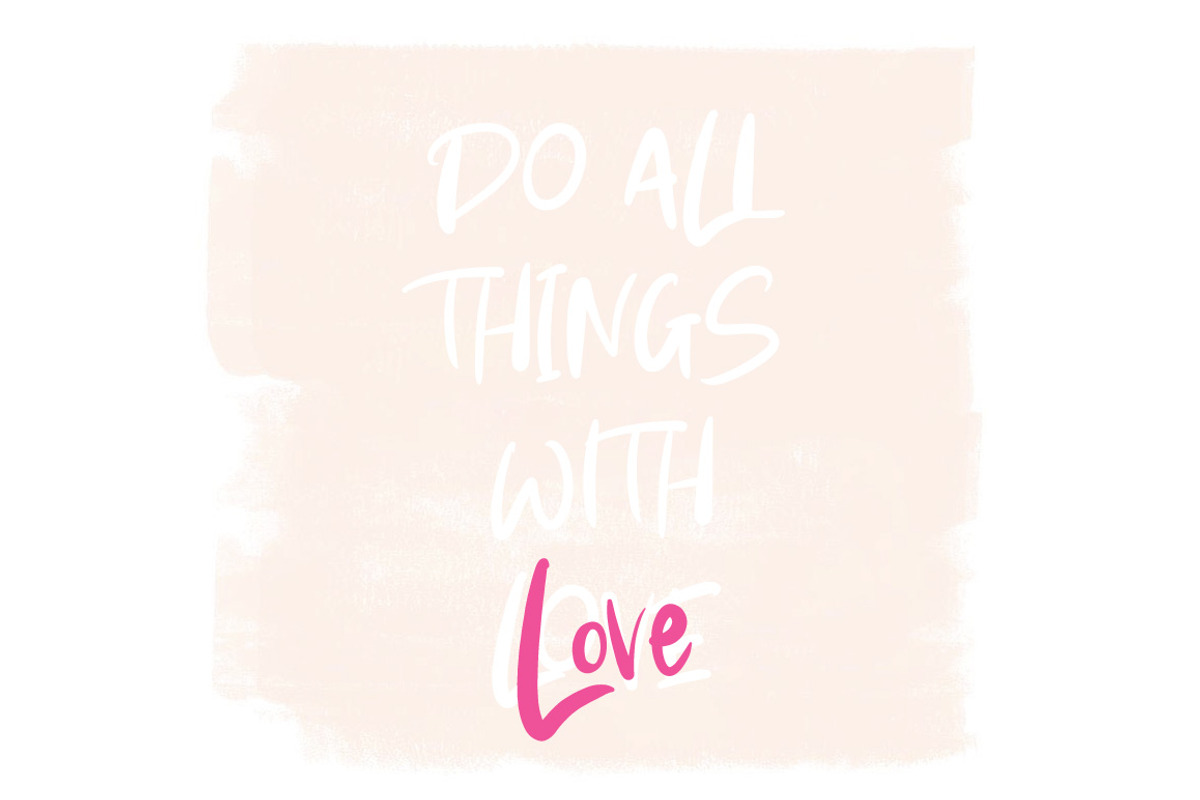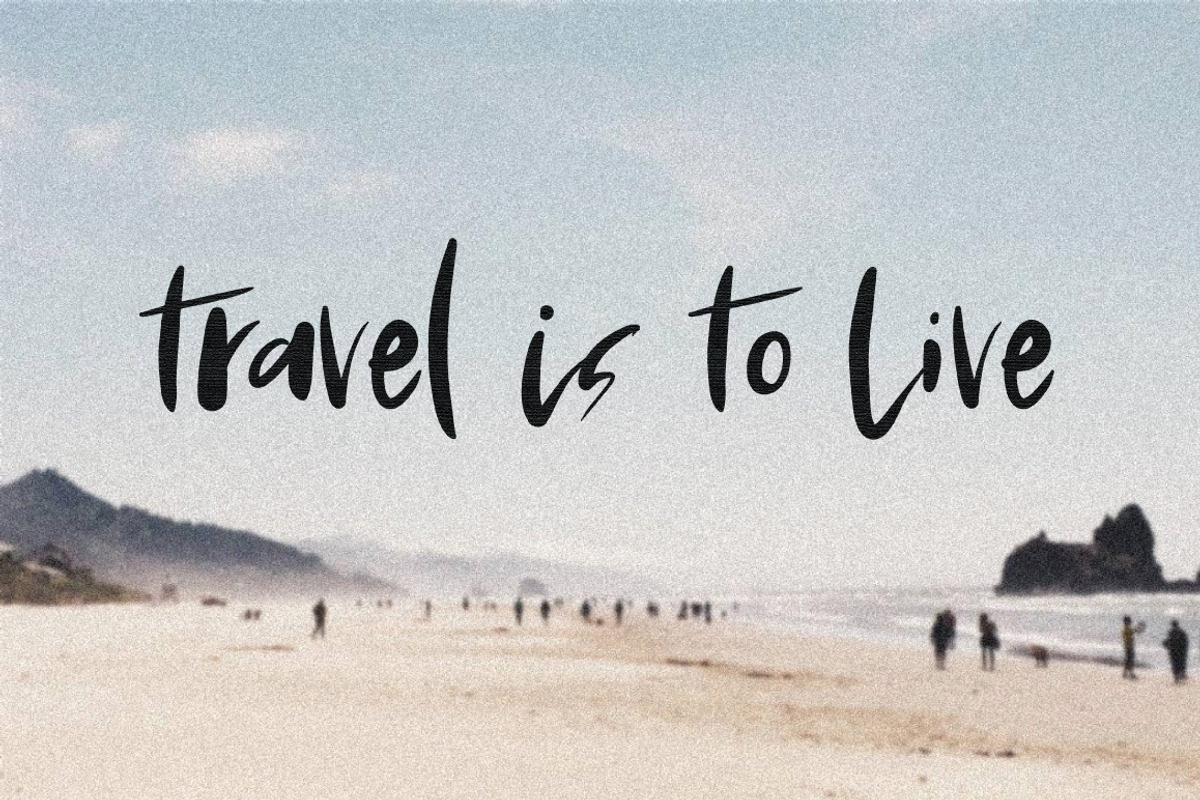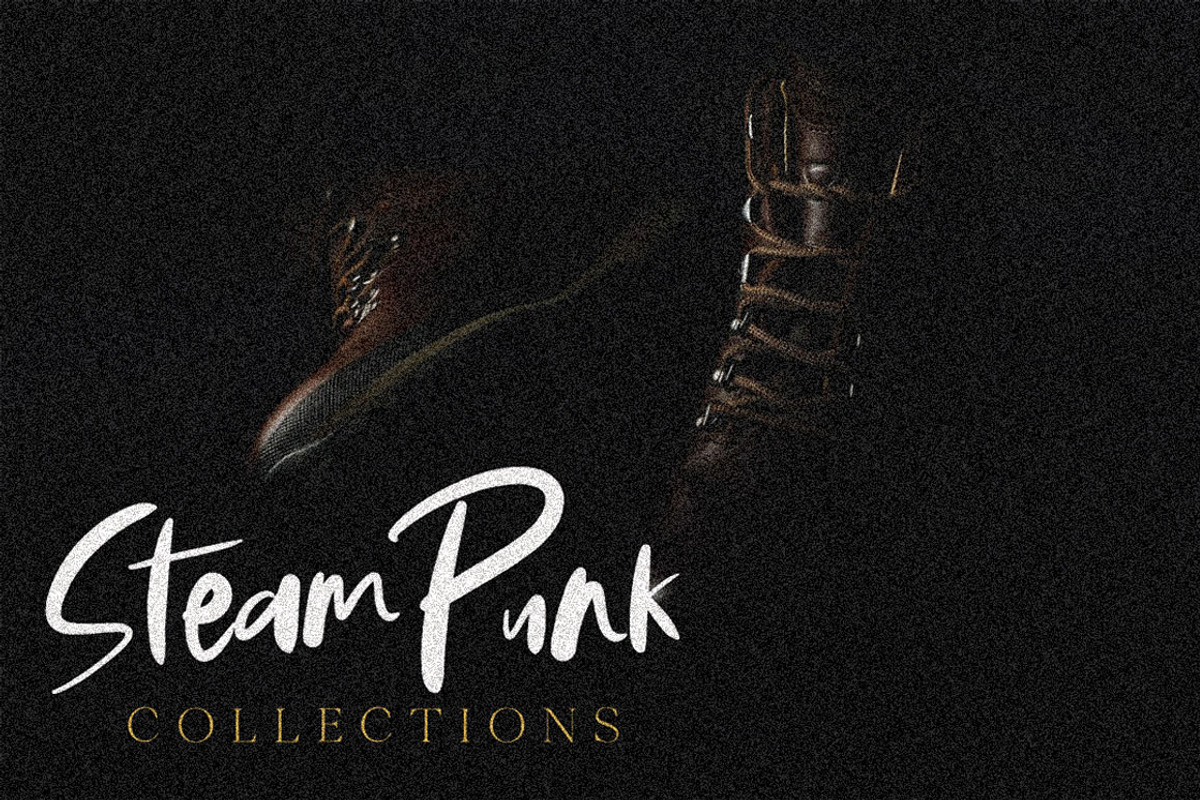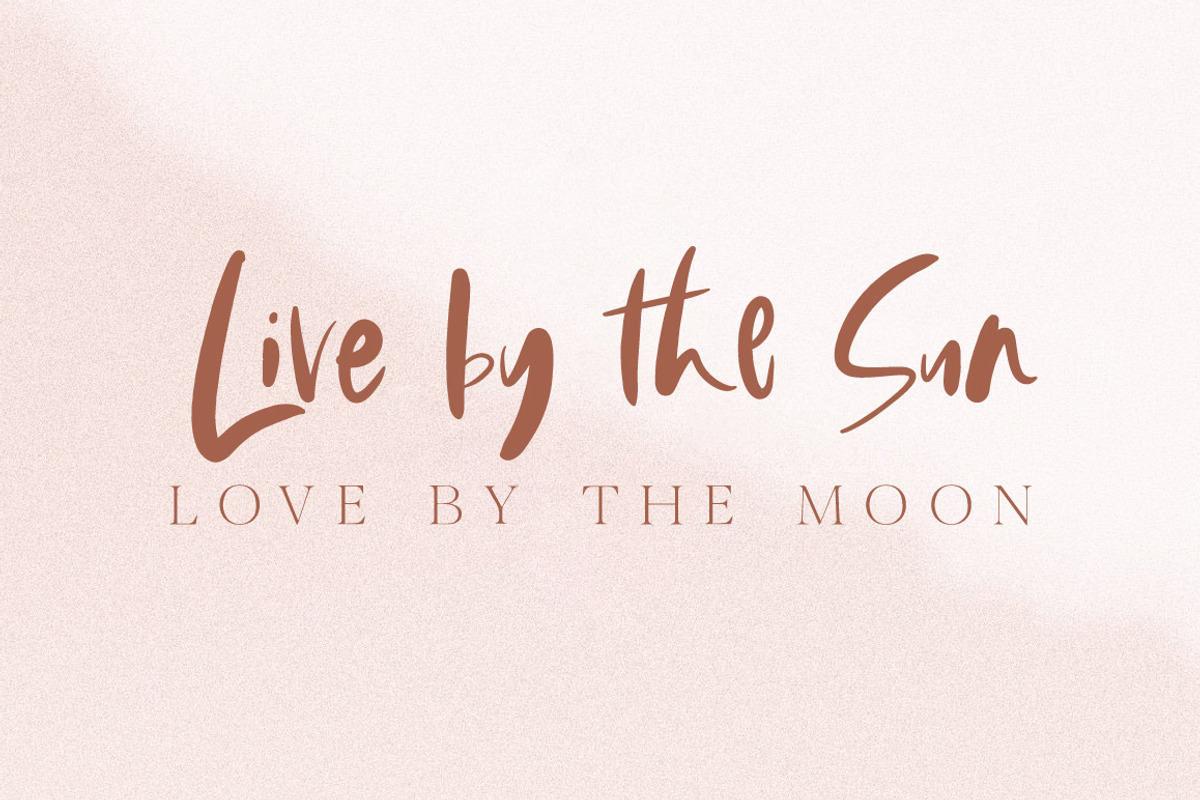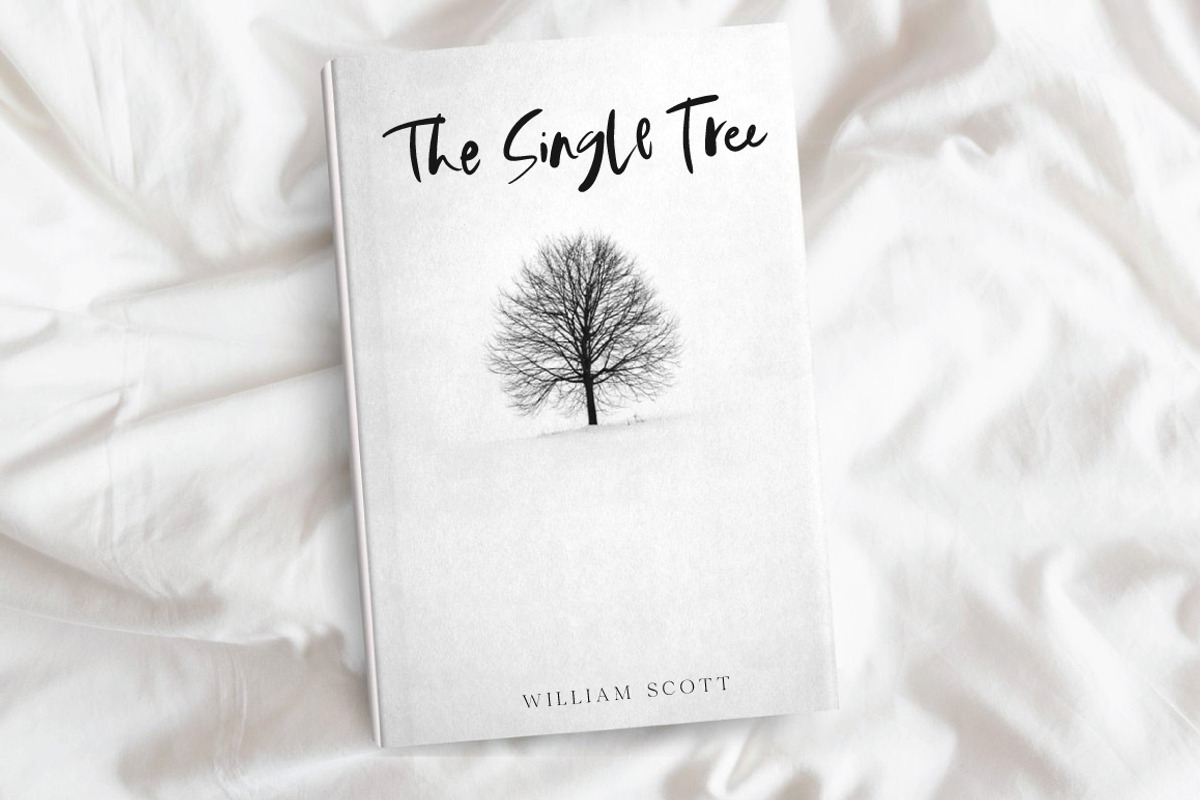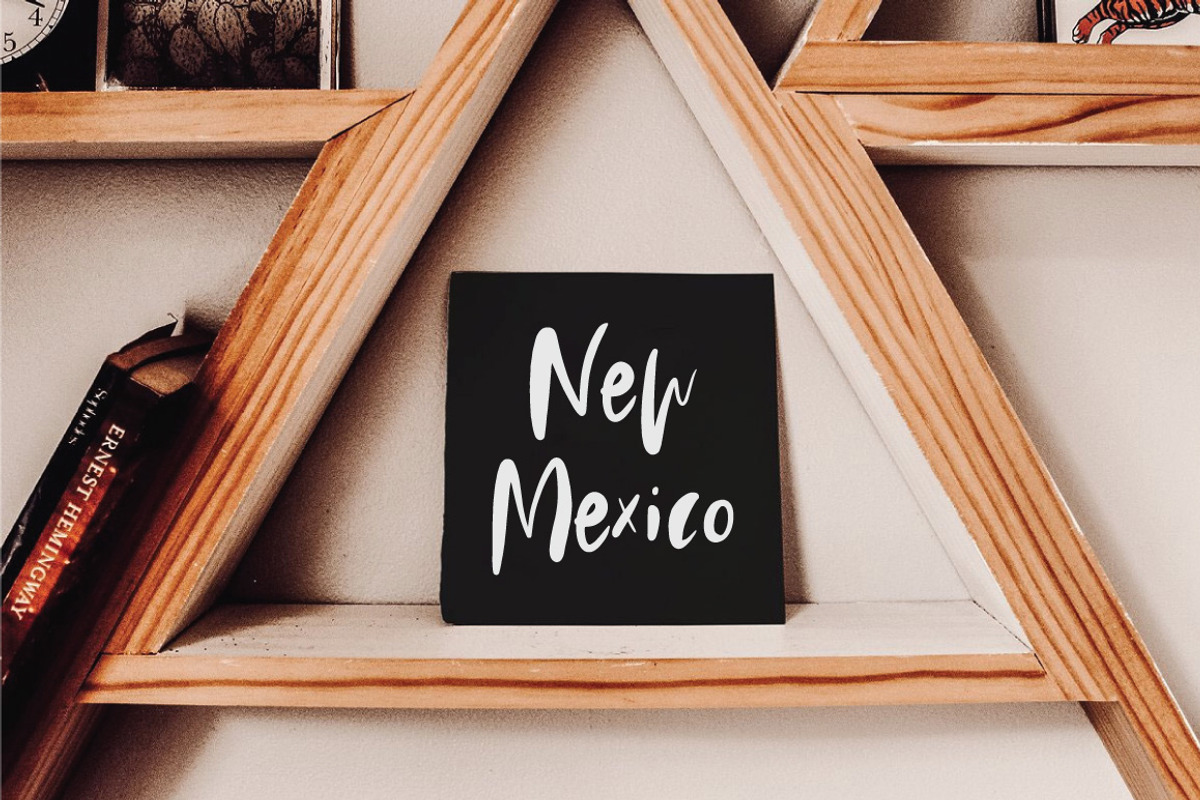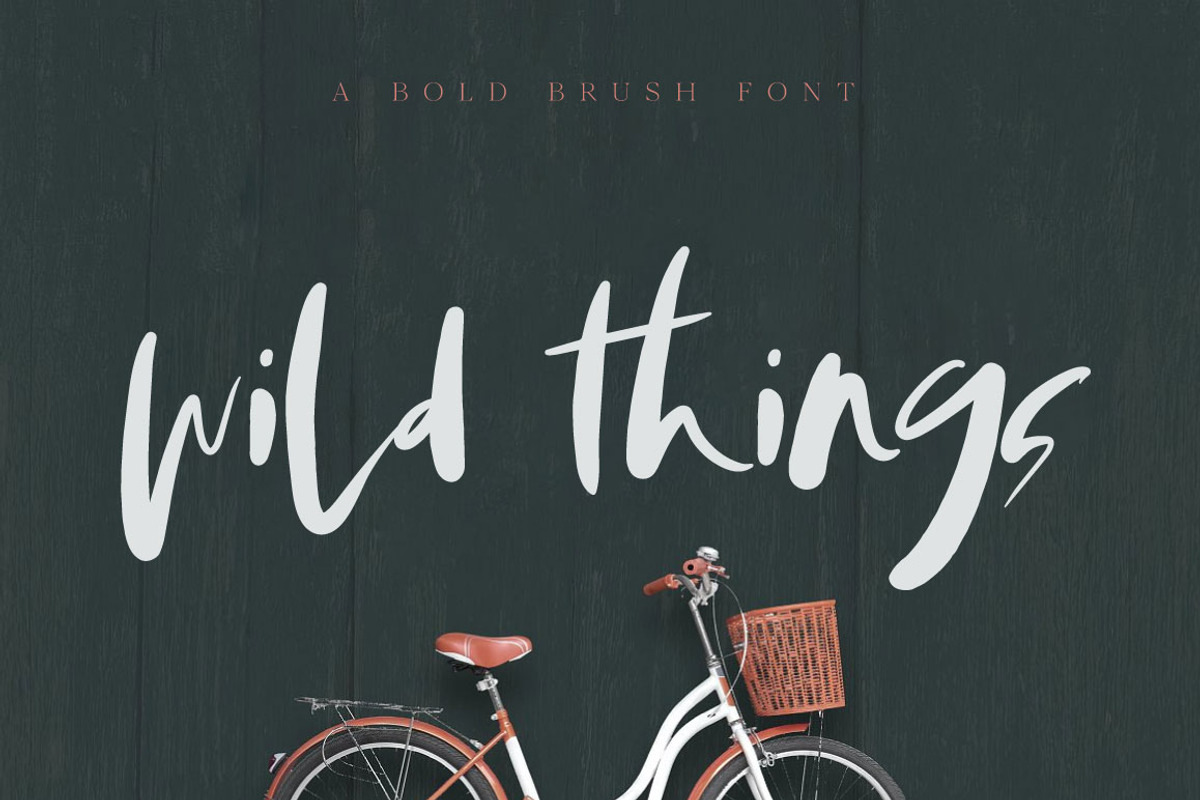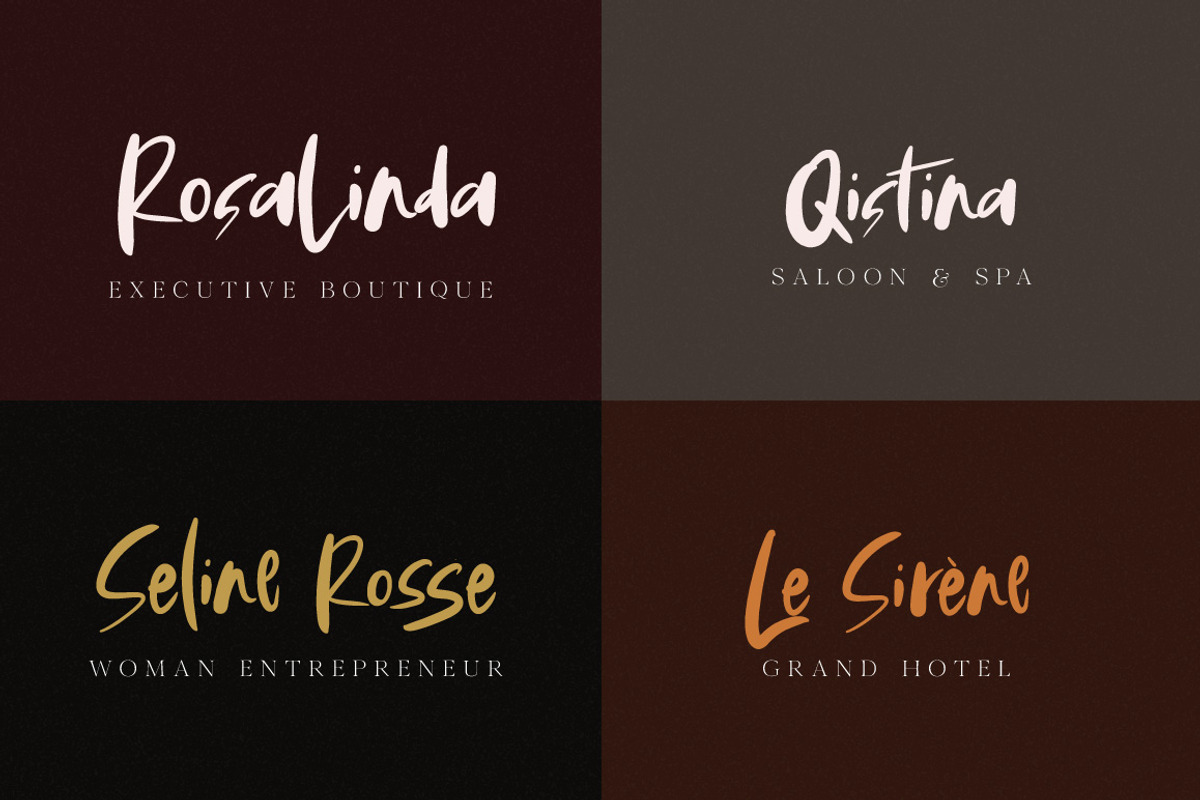
Wild Things Brush Font
Say hello to Wild Things Font! A bold and beautiful brush-lettered font. This font comes with beautiful alternates to pair with :)
Perfect for : using in ink or watercolor based designs or on its own as bold hand-brushed lettering :)
Wild Things Font is guaranteed to add an eye-catching appeal to your logo designs, handwritten quotes, product packaging, merchandise & social media posts.
Wild Things Brush Font by Digital Hustler fits naturally into Branding, posters, packaging, typography.